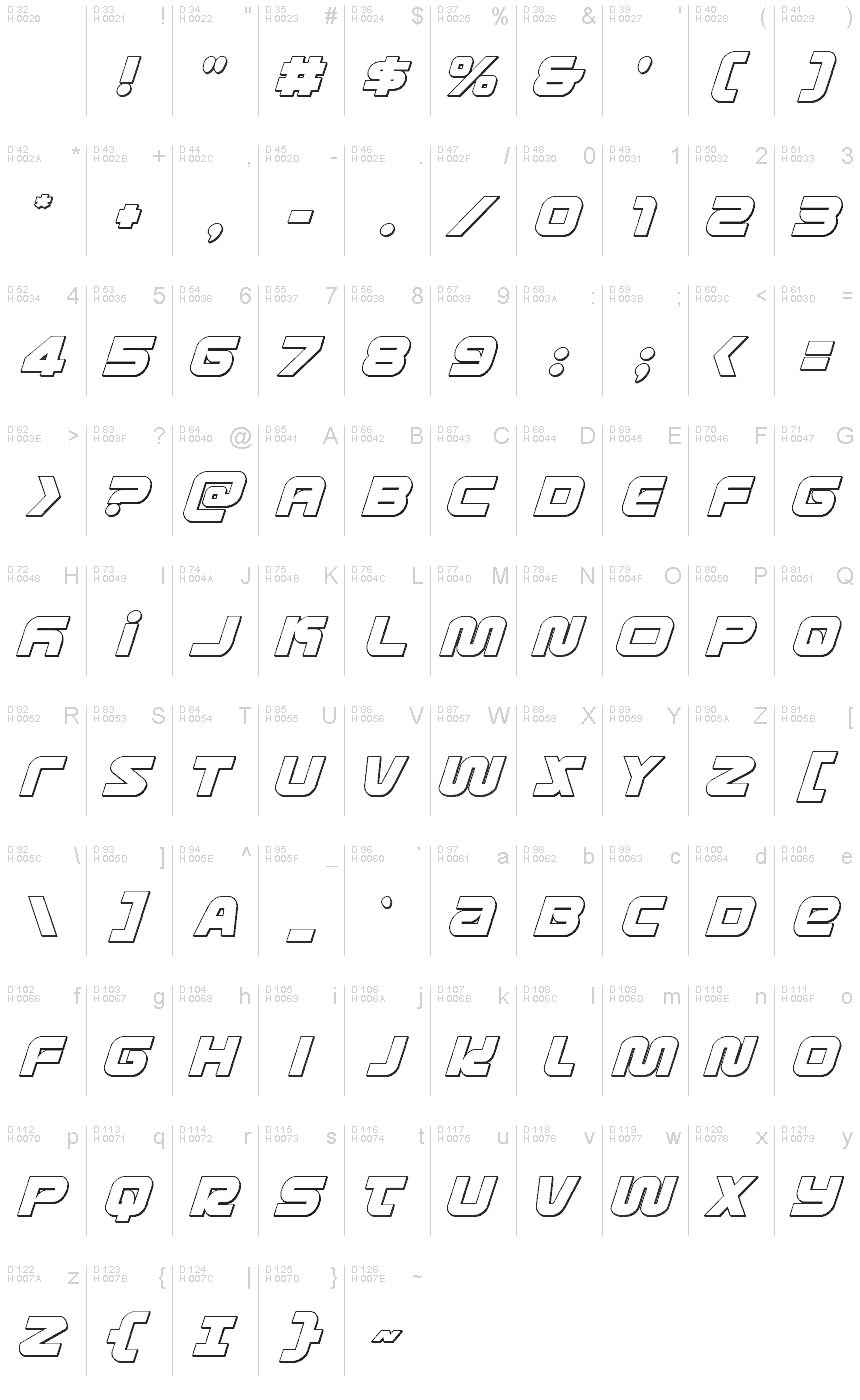
Metronauts 3D Italic
Metronauts 3D Italic is a bold, futuristic display font that commands attention. The dynamic 3D effect and expanded letter forms evoke a sense of movement and technological advancement. Designed by Daniel Zadorozny, this font's sleek, angular aesthetic lends itself particularly well to sci-fi, cyberpunk, or high-tech branding and design projects.
Its striking visual impact makes it an ideal choice for headlines, logos, and other display-oriented applications where a strong, impactful presence is desired. The Metronauts family offers a range of weights and styles, allowing designers to tailor the aesthetic to their specific needs.